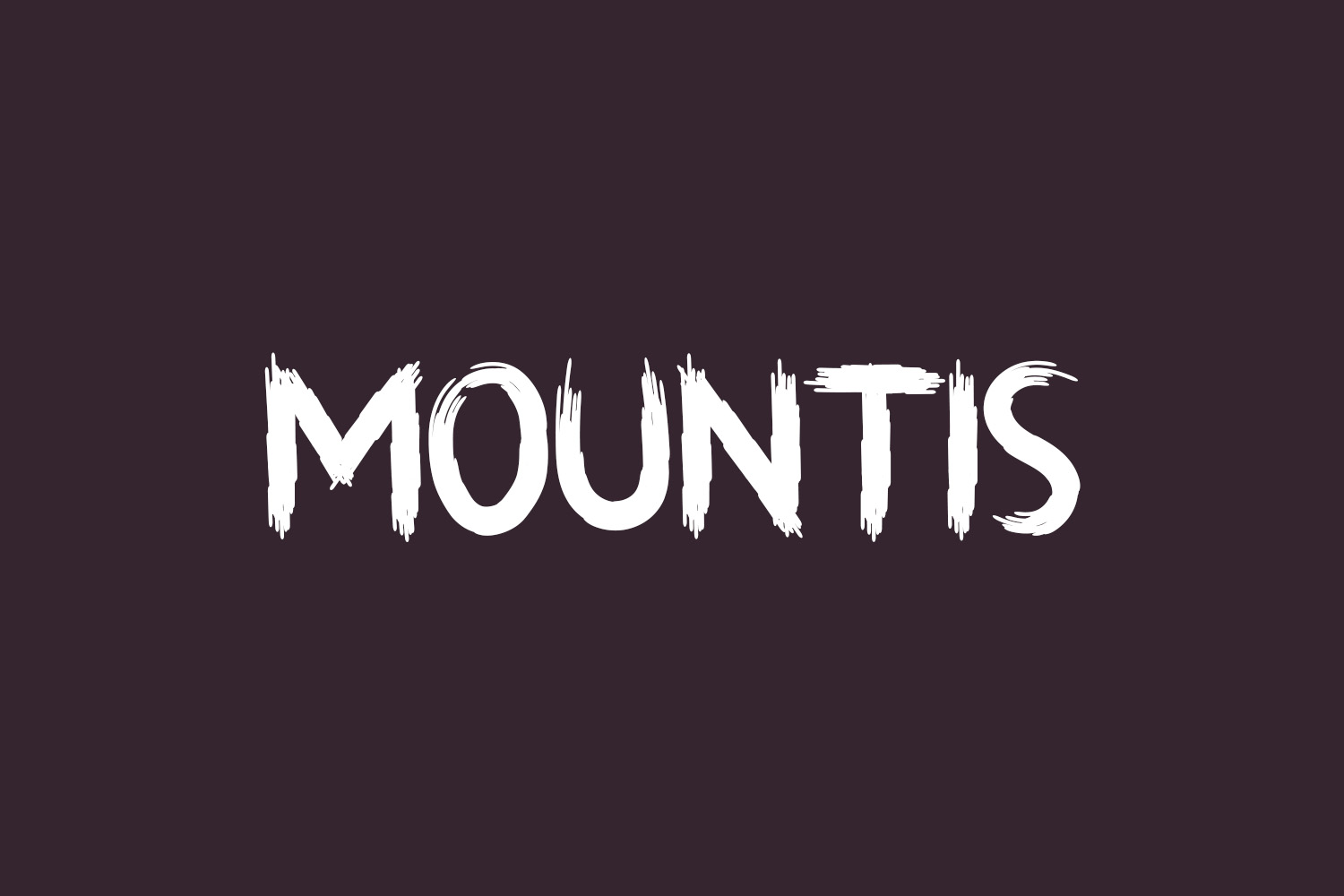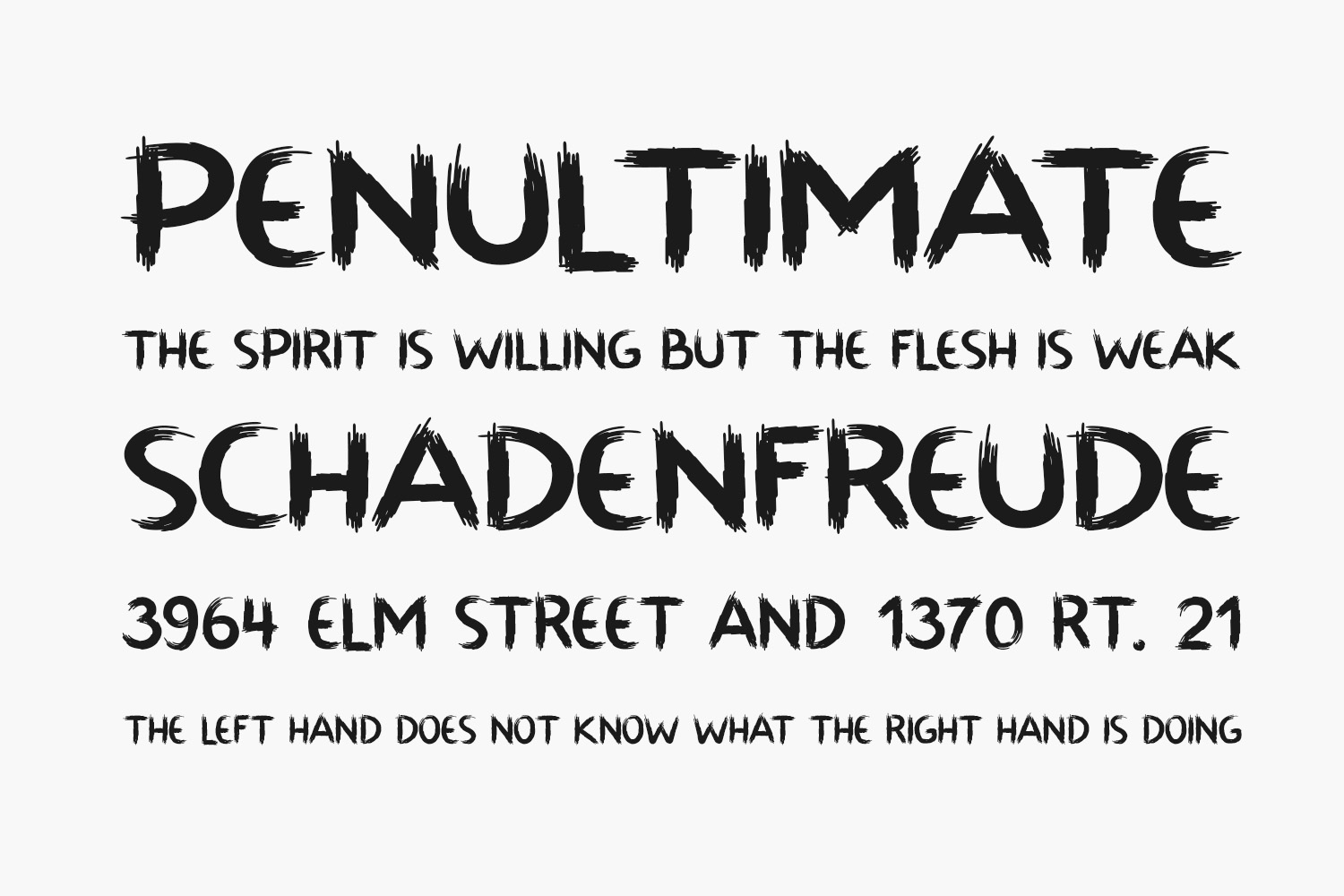
Mountis Free Font Family is an effortlessly stylish and cool brush display font. Infuse your most imaginative ideas with its vibrant energy and watch them spring to life. Mountis Free Font Family is free for personal use only. Please purchase the full version for commercial use.
Designed by Salamahtype